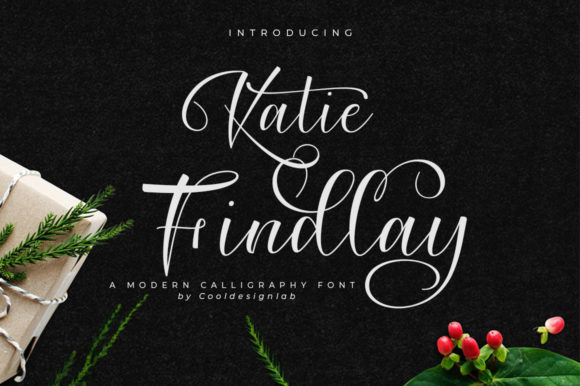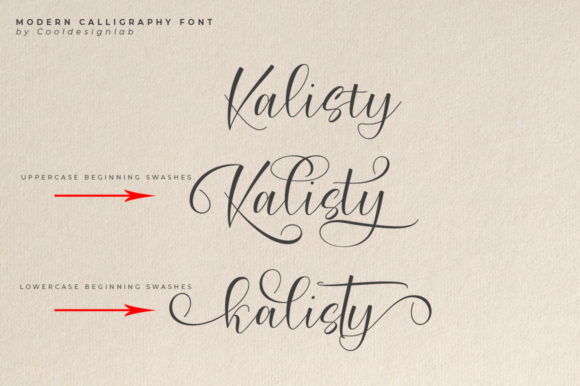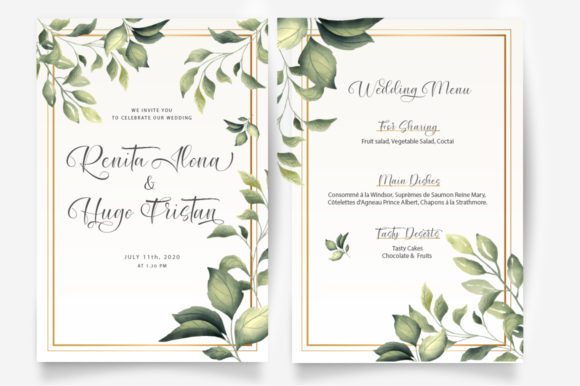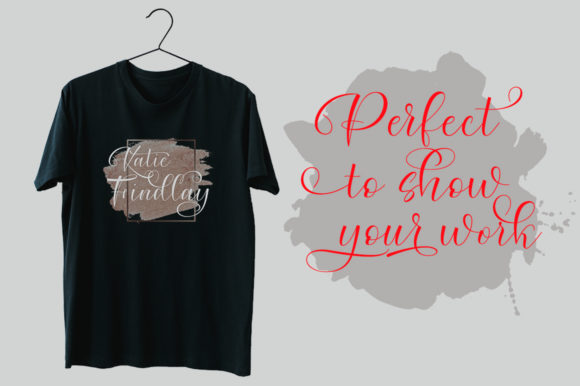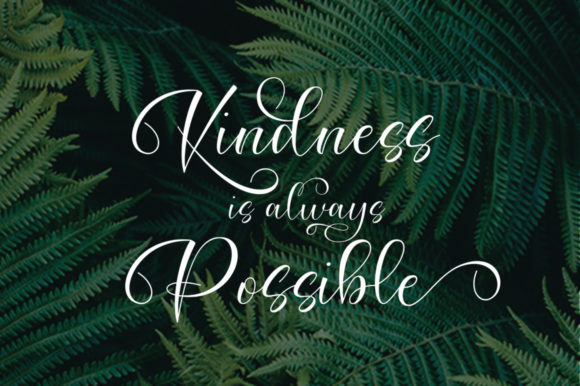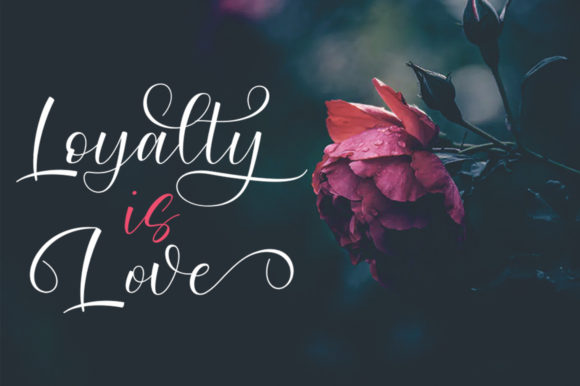
Katie Findlay Font
About Katie Findlay Font
Katie Findlay is a modern homage to classic calligraphy. Its gorgeous swashes make this script an undeniable standout!